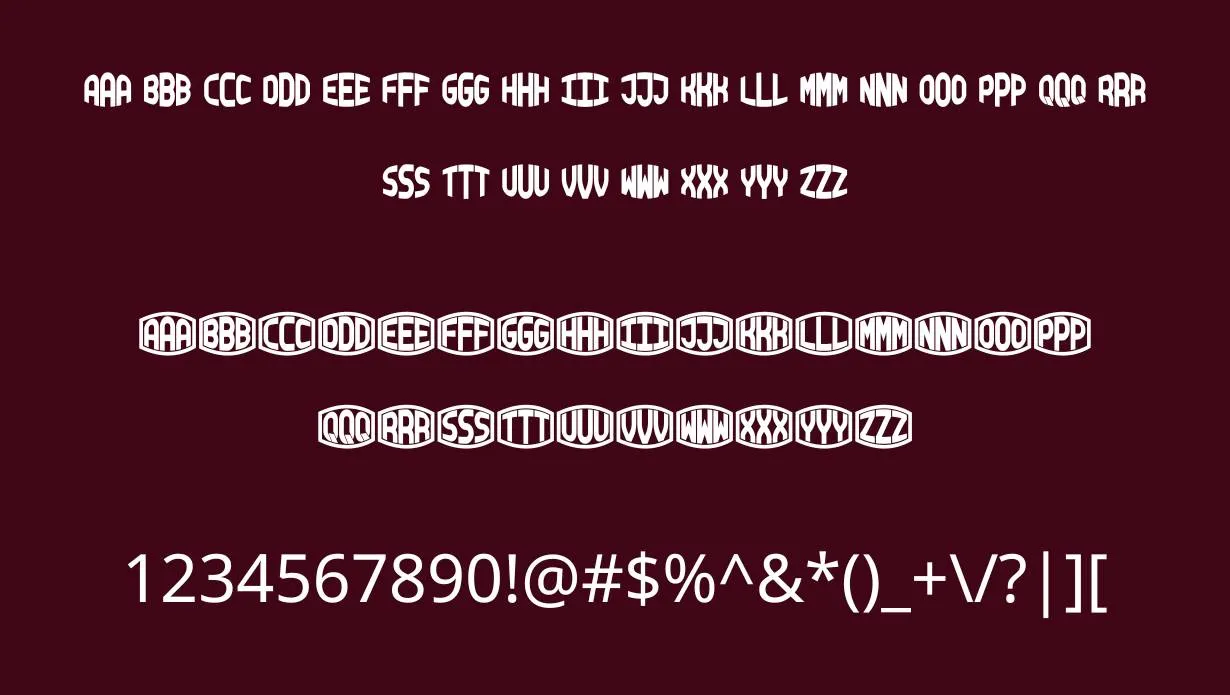
Monogram Font is like crafting a special emblem with your words, adding a personalized and sophisticated touch to your writing. Ideal for projects where you want to showcase initials or create a custom design, this font is like designing a unique symbol for your words.
It transforms your writing into a memorable and distinctive creation, capturing attention with a stylish and elegant vibe. Monogram Font turns your words into a visual masterpiece, creating a personalized and sophisticated atmosphere that stands out.